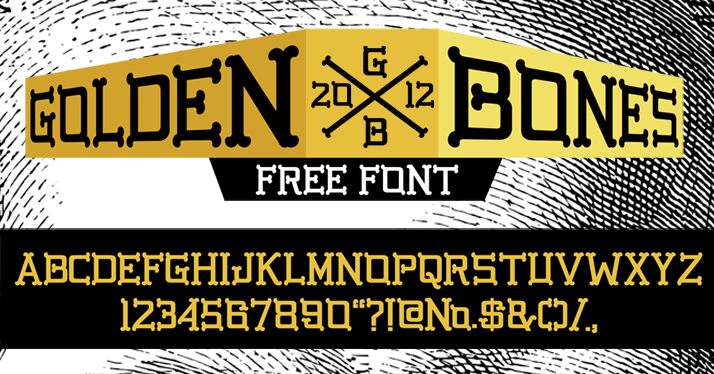
GB Golden Bones by Golden Black is a free decorative display font that turns sturdy capital letters into rows of joined bones. Rounded joints cap the strokes throughout, and the broad, mostly even proportions keep the skeletal construction orderly and easy to recognize rather than loose or grisly.
Skeletons, fossils, and playful horror themes make it a natural fit for Halloween posters, game graphics, novelty packaging, and children's entertainment with a spooky comic edge. It is especially convincing as lettering for a lighthearted Halloween event poster.
GB Golden Bones